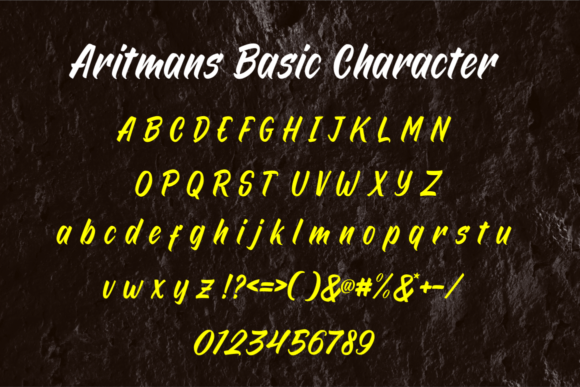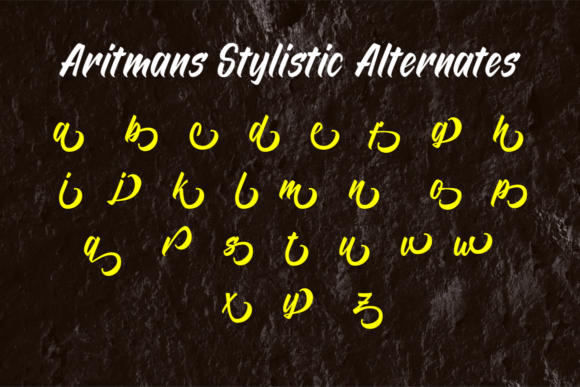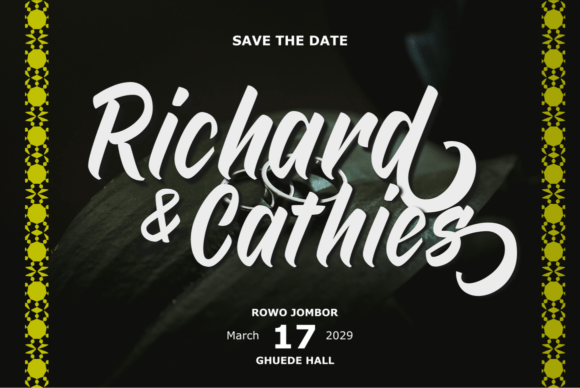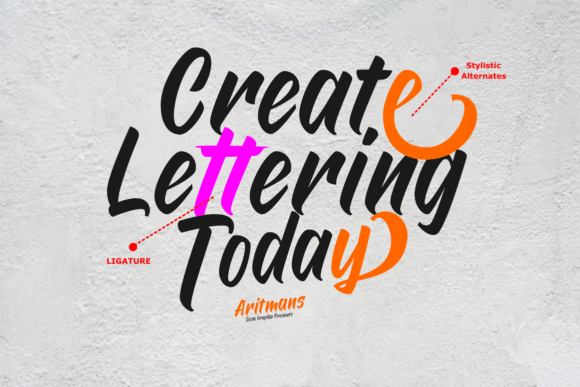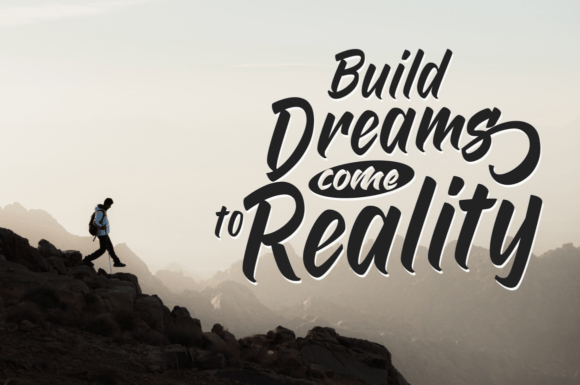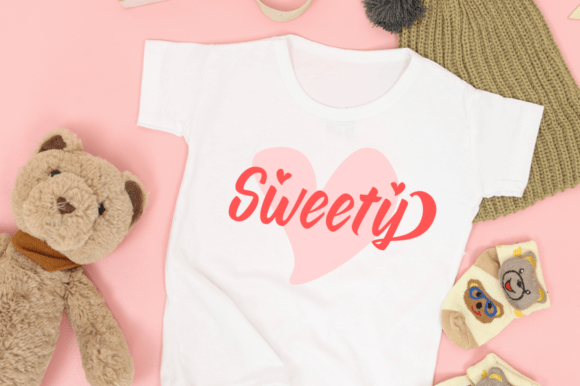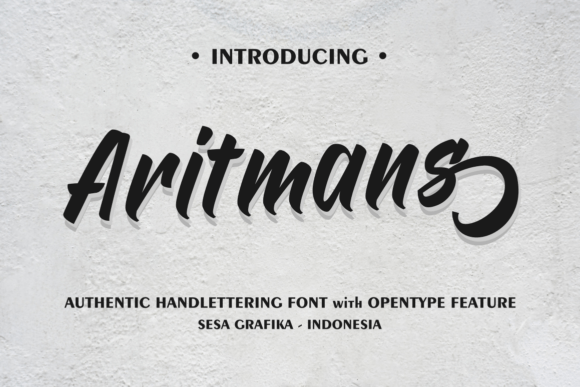
Aritmans Font: Elevate Your Designs with a Bold Script Style
In the world of typography, fonts play a crucial role in conveying the tone and personality of a design. For crafters, designers, and artists, finding the perfect font can be a daunting task. However, if you’re looking for a bold script font that can add a touch of elegance and sophistication to your projects, look no further than Aritmans Font. In this article, we’ll explore the features, benefits, and uses of Aritmans Font, and why it’s a must-have for any designer or crafter.
What is Aritmans Font?
Aritmans Font is a bold script font that is perfect for making a statement. Its elegant and flowing lines make it ideal for a variety of design projects, from wall displays and wedding invitations to social media post logos and product packaging. With its unique and eye-catching style, Aritmans Font is sure to grab attention and leave a lasting impression.
Key Features of Aritmans Font
So, what sets Aritmans Font apart from other fonts? Here are some of its key features:
- Bold and Elegant: Aritmans Font is a bold script font with elegant and flowing lines, making it perfect for designs that require a touch of sophistication.
- Versatile: Aritmans Font can be used for a wide range of design projects, from wall displays and wedding invitations to social media post logos and product packaging.
- Handwritten Taste: Aritmans Font has a unique handwritten taste that adds a personal touch to any design.
Uses of Aritmans Font
Aritmans Font is a versatile font that can be used for a variety of design projects, including:
- Wall Displays: Aritmans Font is perfect for creating eye-catching wall displays that grab attention.
- Wedding Invitations: Aritmans Font is a popular choice for wedding invitations, adding a touch of elegance and sophistication to any design.
- Social Media Post Logos: Aritmans Font can be used to create stunning social media post logos that stand out from the crowd.
- Advertisements: Aritmans Font is perfect for creating eye-catching advertisements that grab attention and drive results.
- Product Packaging: Aritmans Font can be used to create beautiful product packaging that reflects the personality of your brand.
- Product Designs: Aritmans Font can be used to create stunning product designs that showcase your creativity and style.
- Labels: Aritmans Font is perfect for creating labels that add a touch of elegance and sophistication to any product.
- Photography: Aritmans Font can be used to create beautiful watermarks that add a touch of personality to your photographs.
- Invitations: Aritmans Font is a popular choice for invitations, adding a touch of elegance and sophistication to any design.
- Stationery: Aritmans Font can be used to create beautiful stationery that reflects the personality of your brand.
Benefits of Using Aritmans Font
So, why should you use Aritmans Font for your design projects? Here are some of the benefits:
- Elegant and Sophisticated: Aritmans Font adds a touch of elegance and sophistication to any design.
- Versatile: Aritmans Font can be used for a wide range of design projects, making it a great addition to any designer’s toolkit.
- Unique: Aritmans Font has a unique handwritten taste that sets it apart from other fonts.
- Easy to Read: Aritmans Font is easy to read, making it perfect for designs that require a clear and concise message.
| Author | sesa_grafika |
In conclusion, Aritmans Font is a bold script font that is perfect for designers and crafters who want to add a touch of elegance and sophistication to their projects. With its unique and eye-catching style, Aritmans Font is sure to grab attention and leave a lasting impression. Whether you’re creating wall displays, wedding invitations, social media post logos, or product packaging, Aritmans Font is a great choice. So, why not give Aritmans Font a try and see the difference it can make in your designs?